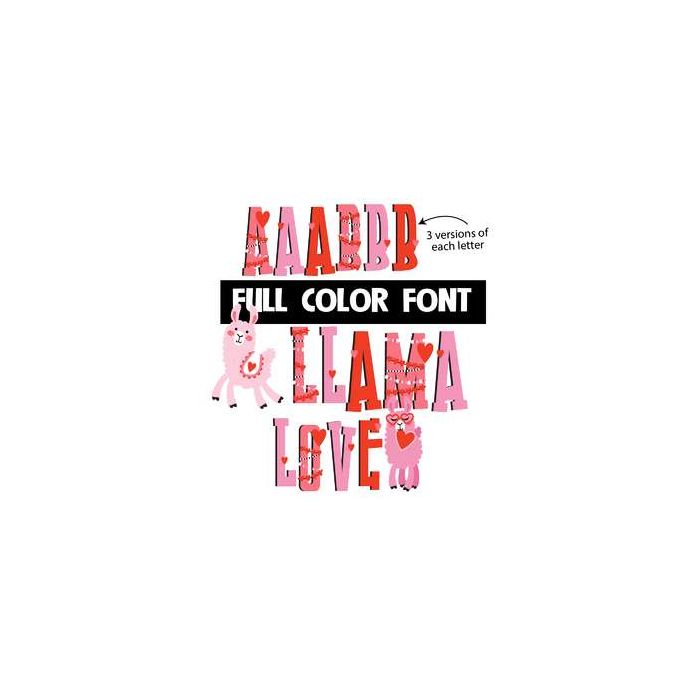
This adorable full-color font features swags of cutesy decor on the uppercase and a lowercase with just hearts. There is a second color of the lowercase you can access through your system's character map and four llamas you can access by typing the greater and less than glyphs or the bracket glyphs. This font works best for titles, displays, posters and more. Please note color fonts will show as black in non compatible programs. This font type is compatible with Silhouette Studio